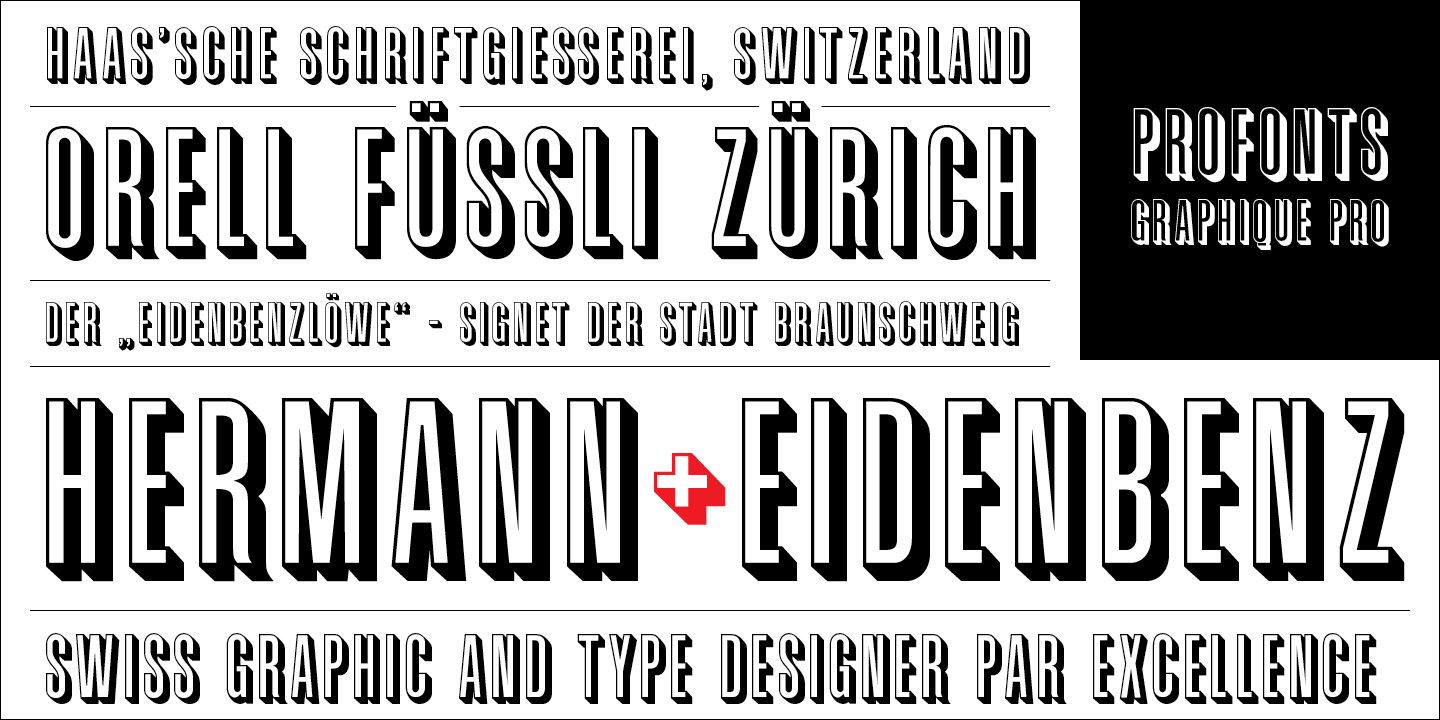
Perfect for creative agency branding, art gallery catalogs, design portfolios, fashion magazines, architectural presentations, modern signage systems, cultural event posters, and contemporary marketing campaigns.
This font is exciting because it masterfully balances artistic expression with functional clarity, creating a sophisticated visual language that speaks directly to design-conscious audiences and creative professionals.
Unleash your creative potential with Graphique Font Free Download, a stunning typeface that represents the perfect fusion of artistic innovation and typographic excellence. This exceptional font embodies the essence of contemporary design thinking, making it indispensable for creative professionals and brands seeking to establish their position at the forefront of visual communication and artistic expression.
Graphique Font features precisely crafted letterforms with distinctive geometric influences and subtle artistic flourishes that create immediate visual impact. The carefully balanced proportions and modern aesthetic make every application feel fresh and sophisticated, while maintaining the clarity and readability essential for effective communication in today's visually saturated marketplace.
The font's remarkable versatility makes it ideal for creative industries where visual distinction and artistic credibility are paramount. Whether you're designing brand identities for innovative startups that need to stand out, creating exhibition materials for contemporary art spaces, or developing marketing campaigns for cutting-edge fashion brands, Graphique Font delivers the sophisticated aesthetic that resonates with discerning audiences.
Design studios and creative agencies worldwide choose the Graphique Font Free Download for projects demanding exceptional visual appeal and professional distinction. The font works brilliantly for architectural firms showcasing modern projects, cultural institutions promoting contemporary programming, media companies establishing editorial authority, and any organization wanting to project creative leadership through thoughtfully designed communications.
The comprehensive Graphique Font family includes multiple weights and stylistic variations that work seamlessly together, enabling designers to create cohesive brand systems with dynamic visual hierarchy. Each weight maintains the signature artistic character while providing the flexibility needed for complex design projects, from detailed annual reports to bold advertising campaigns that capture attention in competitive markets.
This typeface excels in both digital and print applications where design quality directly impacts brand perception and audience engagement. The font's technical precision ensures optimal performance across all mediums, from high-resolution print materials that showcase fine details to responsive web designs that adapt flawlessly across devices and screen technologies.
Graphique Font's contemporary aesthetic doesn't sacrifice functionality for style—instead, it enhances communication effectiveness through thoughtful design that improves readability while creating memorable brand experiences. The font's artistic character helps organizations differentiate themselves while building trust through visual excellence and attention to design details.
The font represents more than typography—it's a strategic tool for organizations seeking to establish creative authority and design leadership in increasingly competitive markets where visual communication determines success and failure.